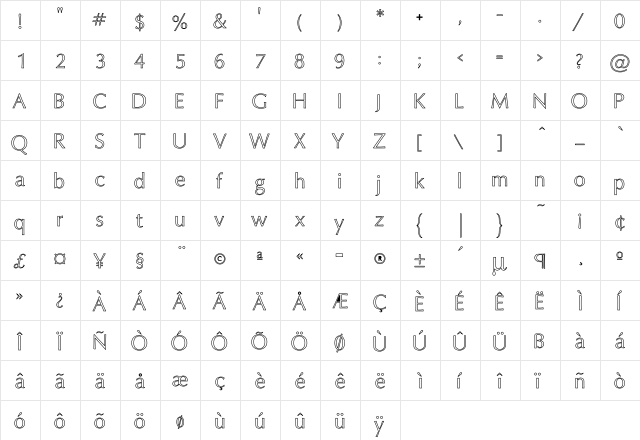
Oxford Hollow Regular
Design Context for Oxford Hollow Typeface
Oxford Hollow takes a measured approach to typography — its balanced proportions and neutral character make it a reliable workhorse for both digital and print work.